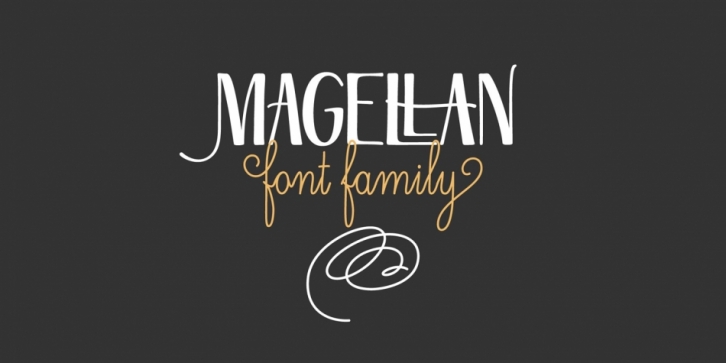
Magellan is a dingbat, script and display serif font family. This typeface has five styles and was published by Anastasia Dimitriadi.
The Magellan font family is a hand drawn collection of 4 fonts, that were inspired from the art of hand lettering. In Magellan fonts you will find a variety of Open type features that offer you endless combinations and create the warm and playful feel of hand lettering.
Magellan contains 538 glyphs with standard and discretionary ligatures, stylistic and titling alternates.
Magellan Deco contains 480 glyphs with standard and discretionary ligatures.
Magellan Script comes up in two styles, regular and italic. It contains 688 glyphs with stylistic alternates, standard ligatures and 2 stylistic classes with initial and terminal letters.
Magellan Ornates is a set of 22 decorative flourishes.